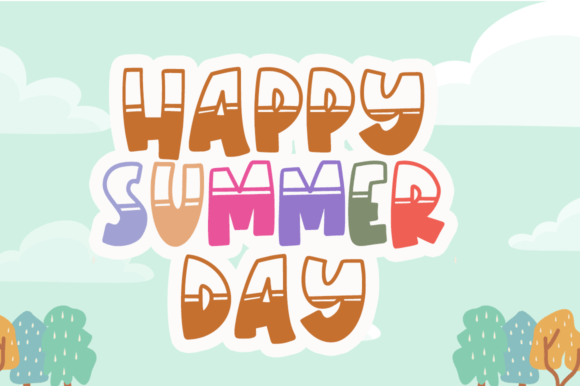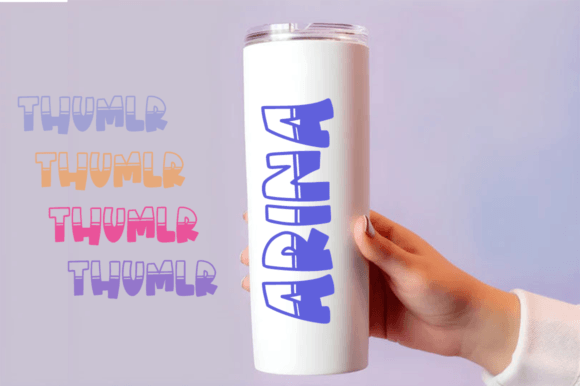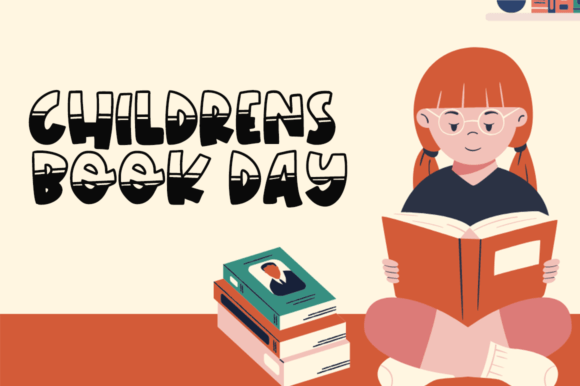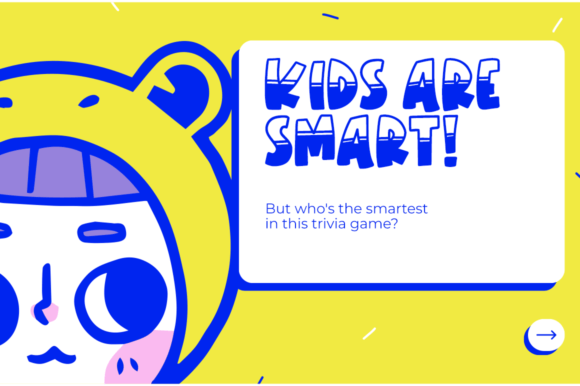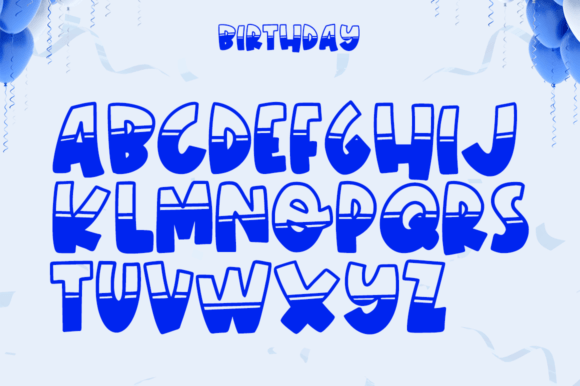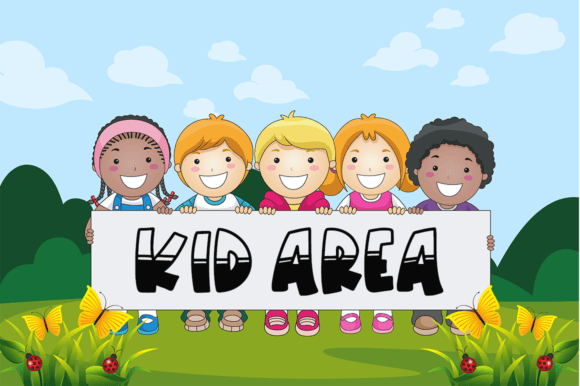
Unveiling ‘Birthday Party’: The Ultimate Font for Festive Designs
Have you ever been in the middle of a design project, and suddenly, it feels like something’s missing? You’re not alone! I recall working on a winter-themed clothing design project, and no matter how hard I tried, I just couldn’t find the right font to capture the festive spirit. That’s when I stumbled upon ‘Birthday Party’, a handcrafted font that completely transformed my design game.
The Birth of a Festive Font
‘Birthday Party’ is more than just a typography; it’s a summons to exhilaration, turning each project into a uniquely personal and festive communication. This captivating font is perfectly suited for winter-themed endeavors, effortlessly enhancing charm to clothing designs, holiday ornaments, SVG schemes, stickers, and more.
- ✨ Unique, handcrafted design that adds a personal touch to any project
- 🎉 Excellent for creating festive and engaging visual content, from holiday cards to social media graphics
- 💻 Supports OpenType features, glyphs, and stylistic alternates for added versatility
- ⚠️ Some users might find the font a bit too ornate for very formal or minimalist designs
- 🤔 Limited character set compared to more extensive font libraries
The Designer Inspiration Behind ‘Birthday Party’
Imagine a designer who grew up surrounded by festive holiday markets and snowflakes gently falling on the ground. This designer, fueled by a passion for creating joyful and engaging visual experiences, set out to craft a font that would bring people together. And so, ‘Birthday Party’ was born – a font that embodies the spirit of celebration and connection.
Q: What makes ‘Birthday Party’ unique?
A: ‘Birthday Party’ boasts a handcrafted design that adds a personal touch to any project, making it perfect for creating festive and engaging visual content.
Q: Does ‘Birthday Party’ support OpenType features?
A: Yes, ‘Birthday Party’ supports OpenType features, glyphs, and stylistic alternates, providing added versatility for your designs.